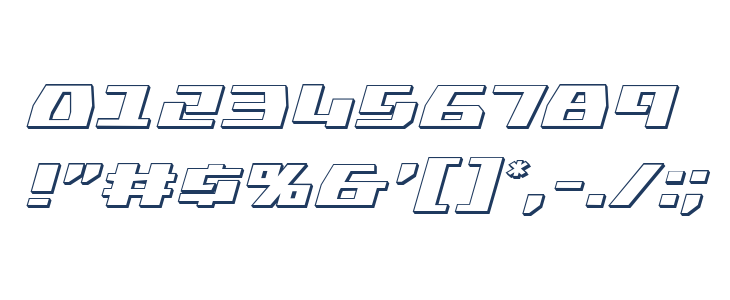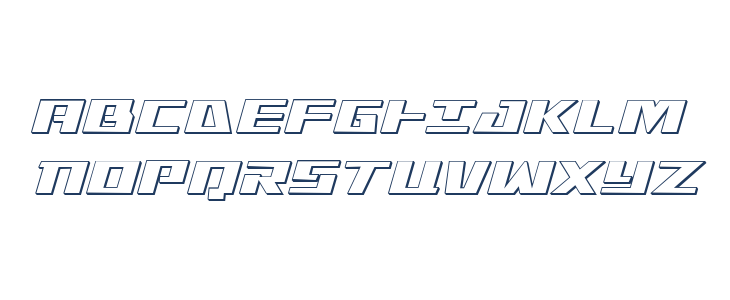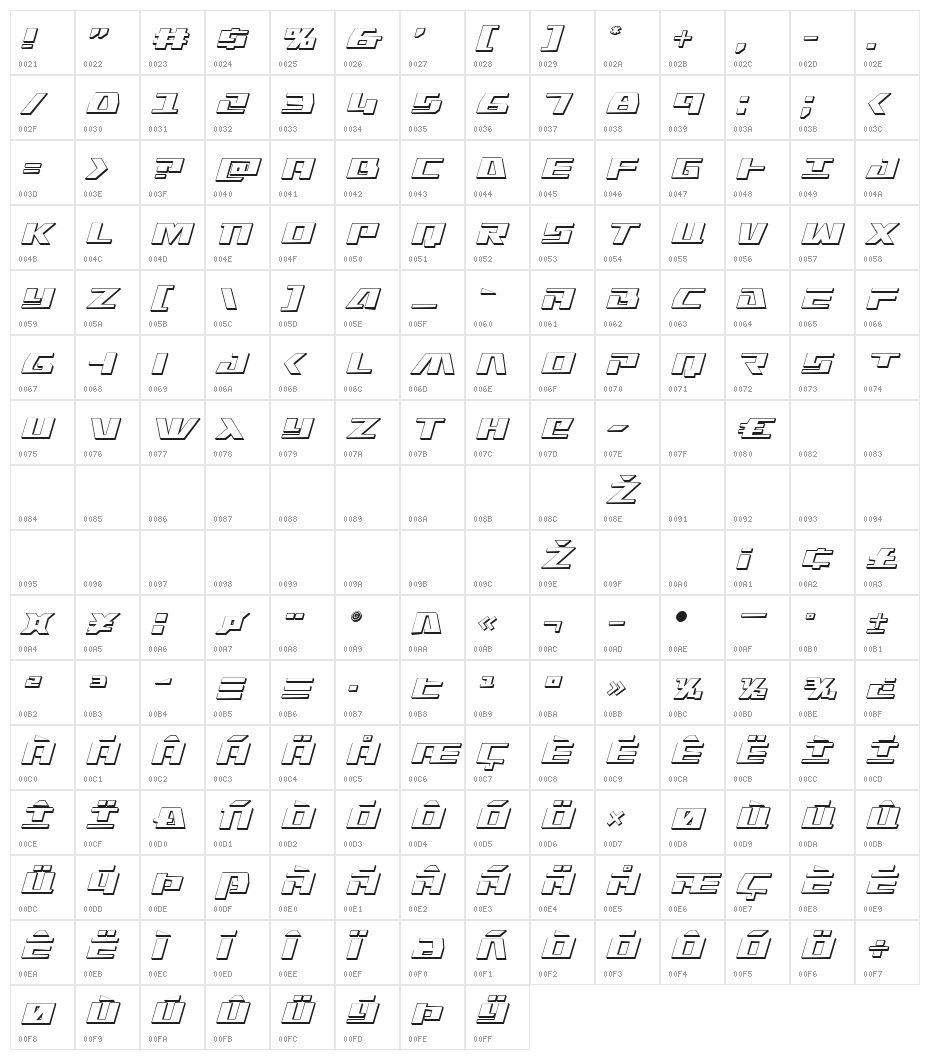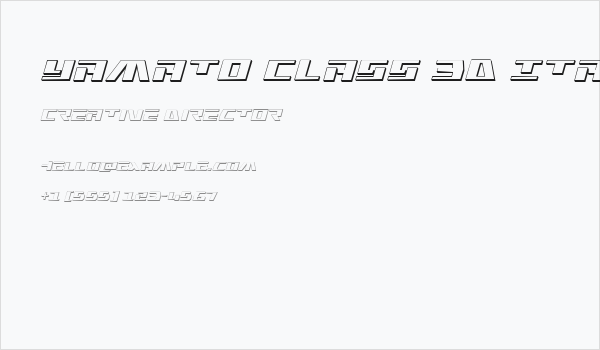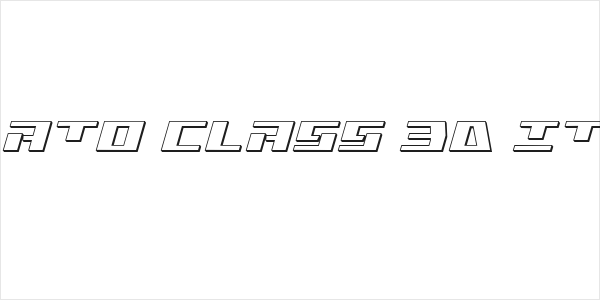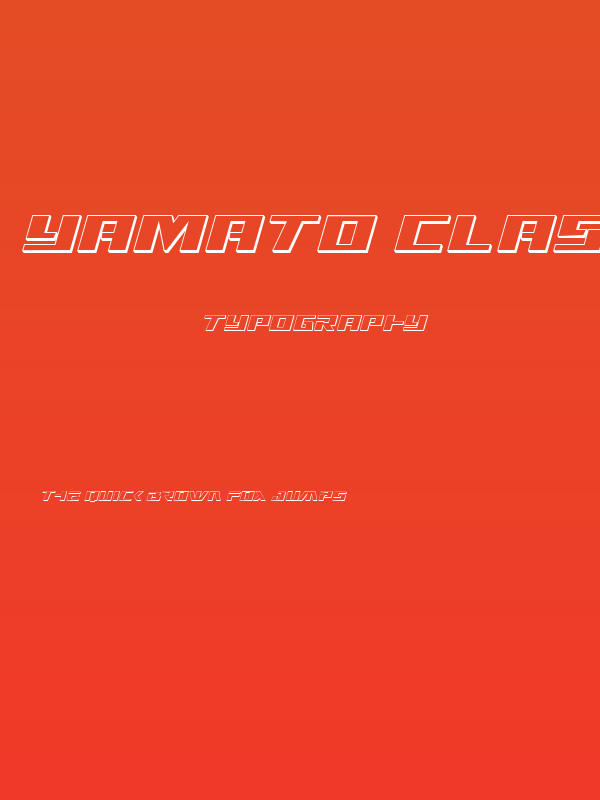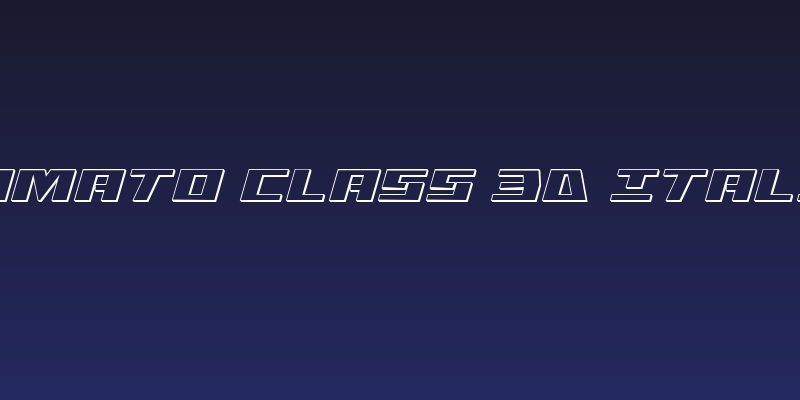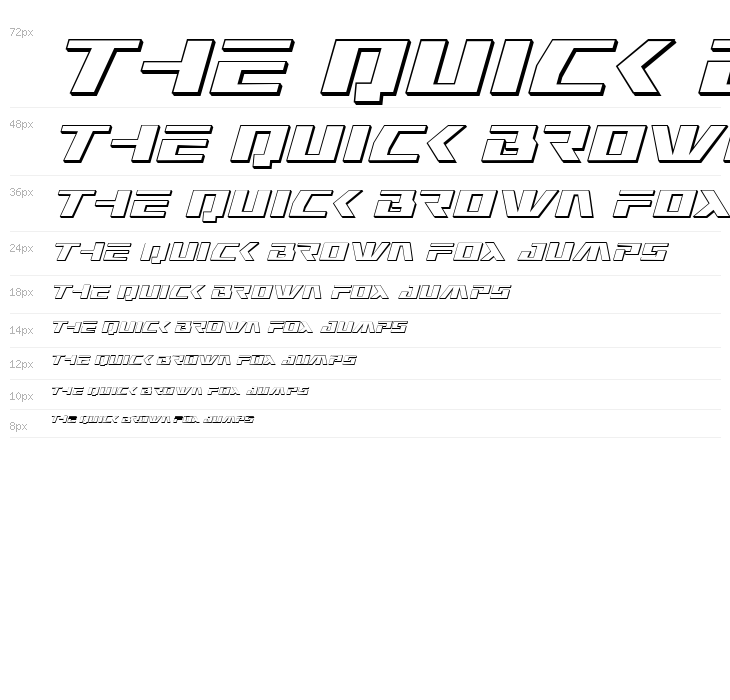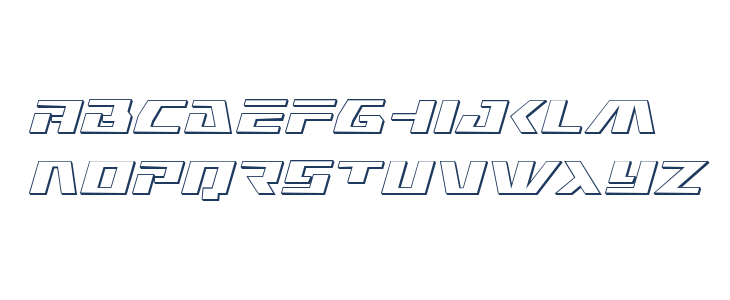
Yamato Class 3D Italic Font
Yamato Class 3D Italic Description
A geometric, outlined display typeface with a 3D effect and italicized, forward-leaning letterforms. The characters are angular, with sharp corners and a futuristic, mechanical appearance. The font maintains consistent stroke thickness and spacing, emphasizing a technical and modern aesthetic.
| Overall Style | Futuristic, Decorative, Modern |
| Use Case | Headlines, Logos, Posters, Branding |
| Proposed Projects | Video game titles, sci-fi posters, technology branding, event flyers, digital interfaces. |